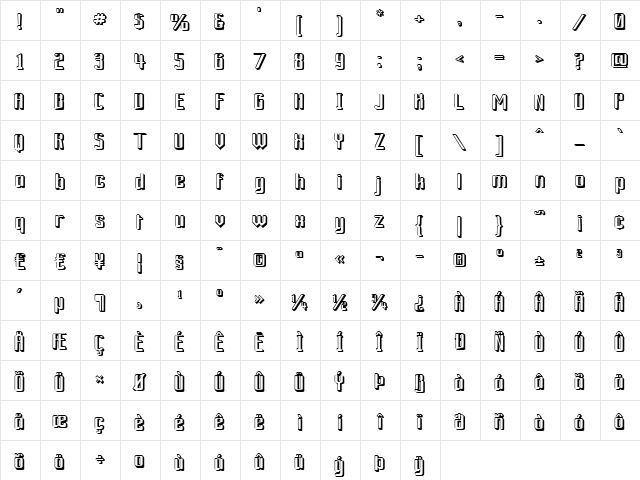
Ardour 3D GM Regular Font Preview
Ardour 3D GM Regular
Design Context for Ardour 3D GM Typeface
Ardour 3D GM is a composed and adaptable typeface that performs quietly and consistently across a wide range of design contexts.